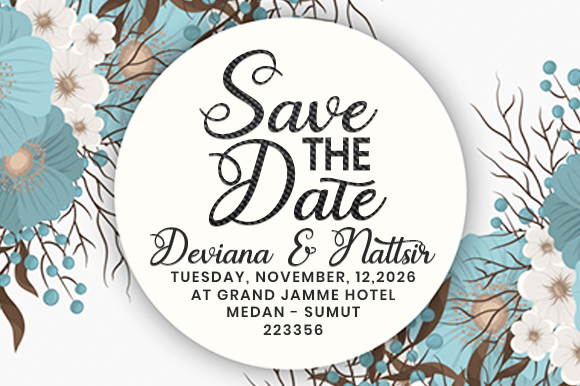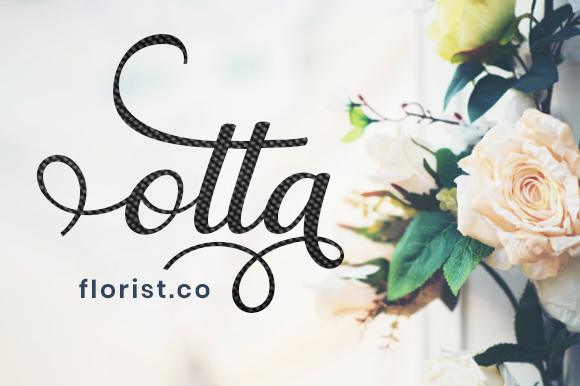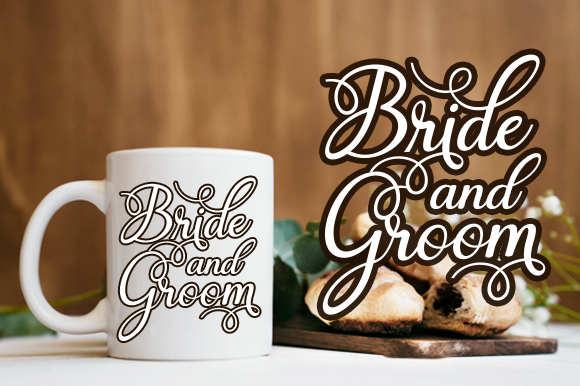
Introduction to Lamthong Font
Lamthong feels equally charming and elegant.
This stunning handwritten font is a stylish homage to classic calligraphy This font is the perfect fit for all of your logos, branding, social media, and crafty DIY projects.
Key Features of Lamthong Font
Why Choose Lamthong Font?
Lamthong Font offers exceptional quality and versatility, making it a valuable addition to your design toolkit. Whether you’re creating for personal projects or commercial use, Lamthong Font delivers professional results.